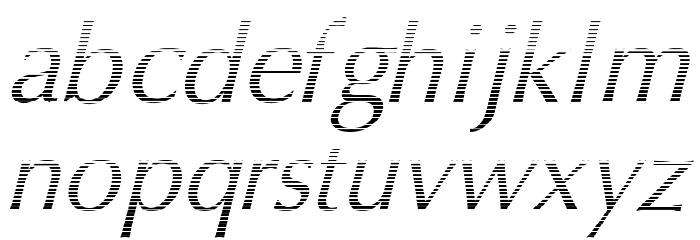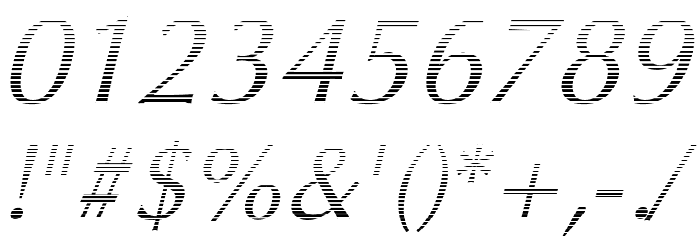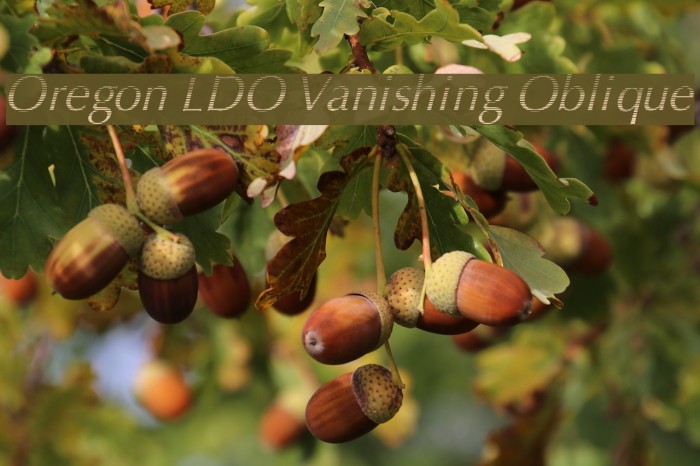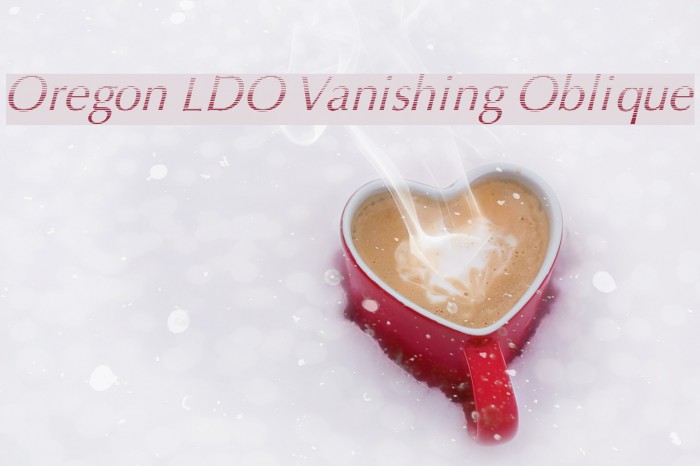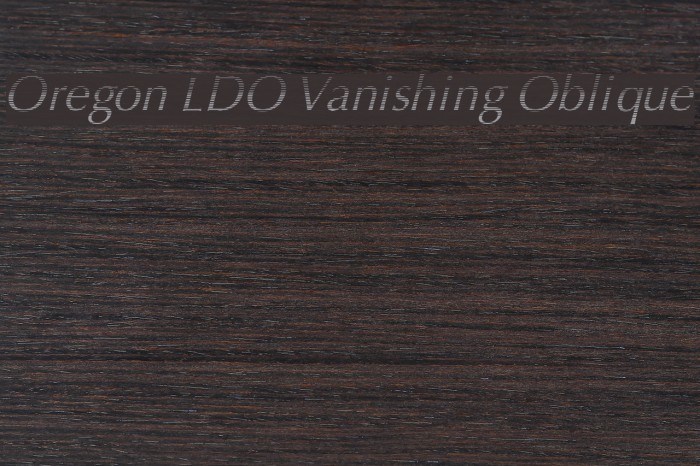
Oregon LDO Vanishing Oblique Font
This font features a distinctive oblique style with a vanishing effect, characterized by horizontal lines that create a sense of motion and dynamism. The uppercase and lowercase letters maintain a consistent slant, giving the typeface a sleek and modern appearance. The numerals and special characters follow the same design principles, ensuring uniformity across all glyphs. The font's unique aesthetic makes it stand out, with its clean lines and contemporary feel, suitable for various creative applications.
A modern oblique font with a vanishing line effect, offering a dynamic and sleek appearance.
- Proposed Projects: Ideal for branding, advertising, and editorial design projects where a modern and dynamic look is desired.
- Use Case: Headlines, Logos, Branding